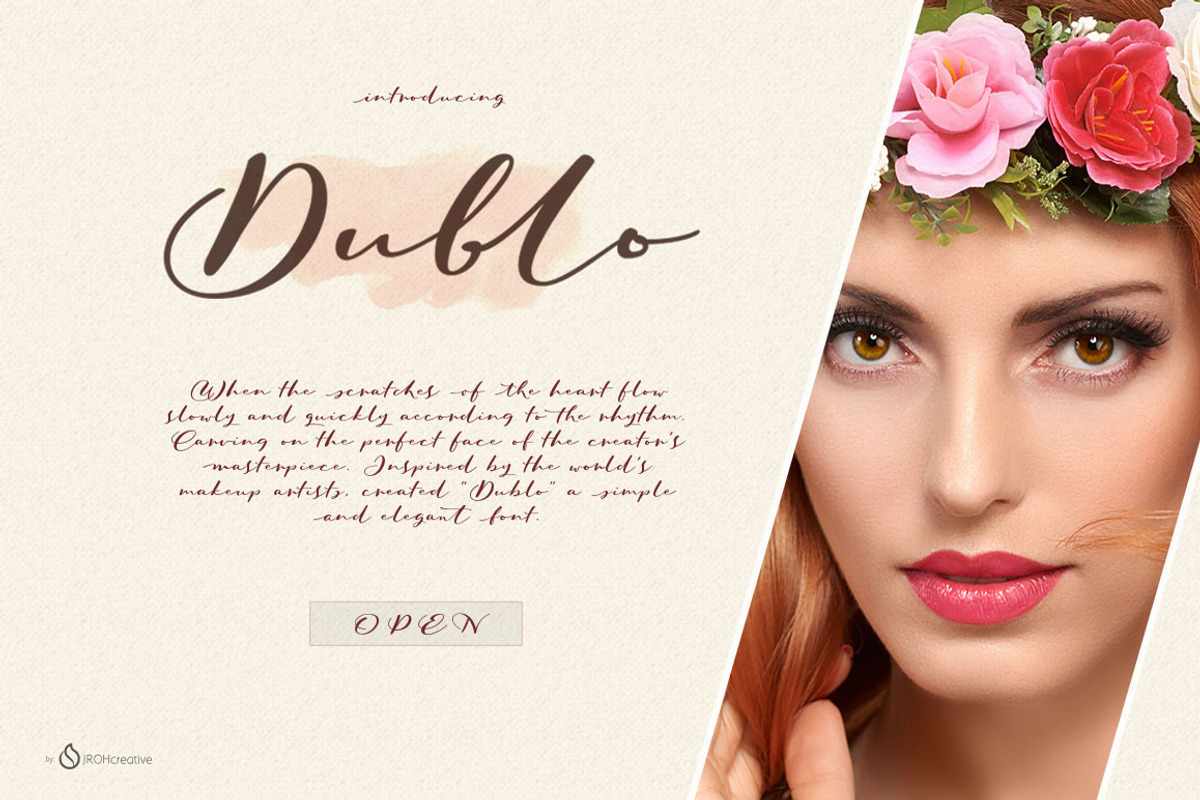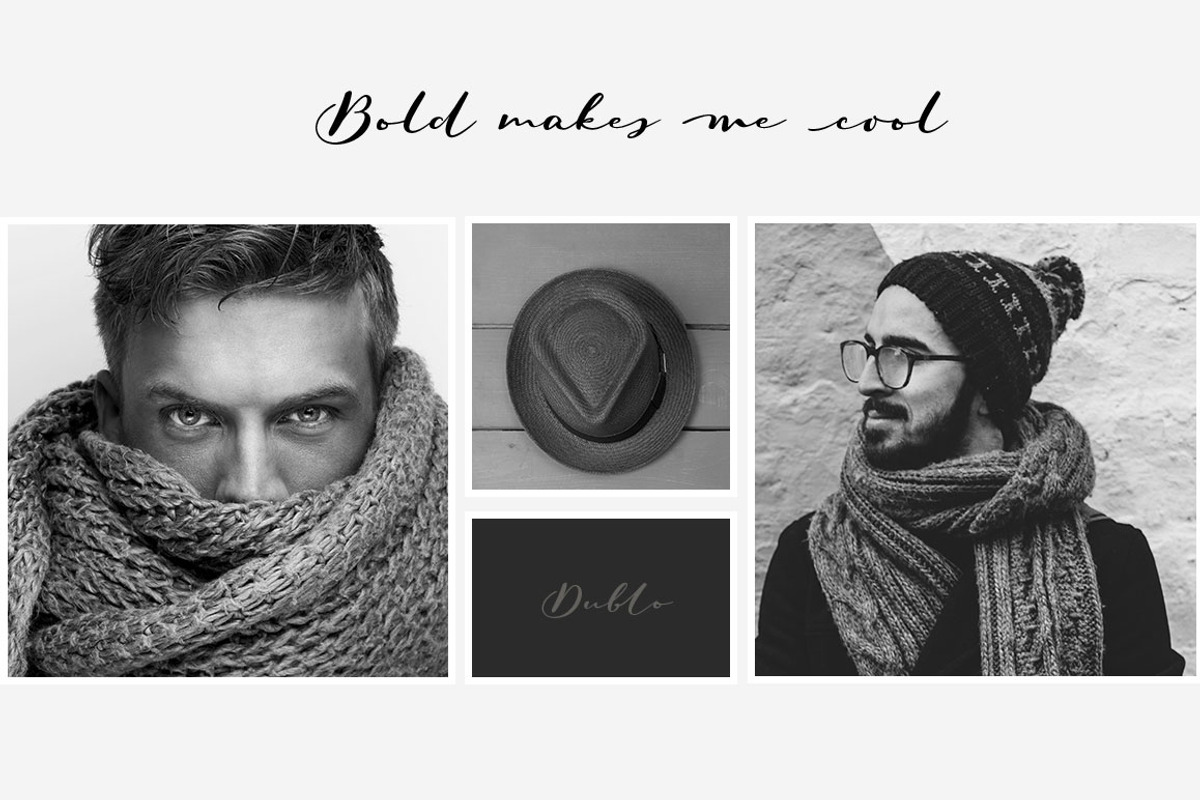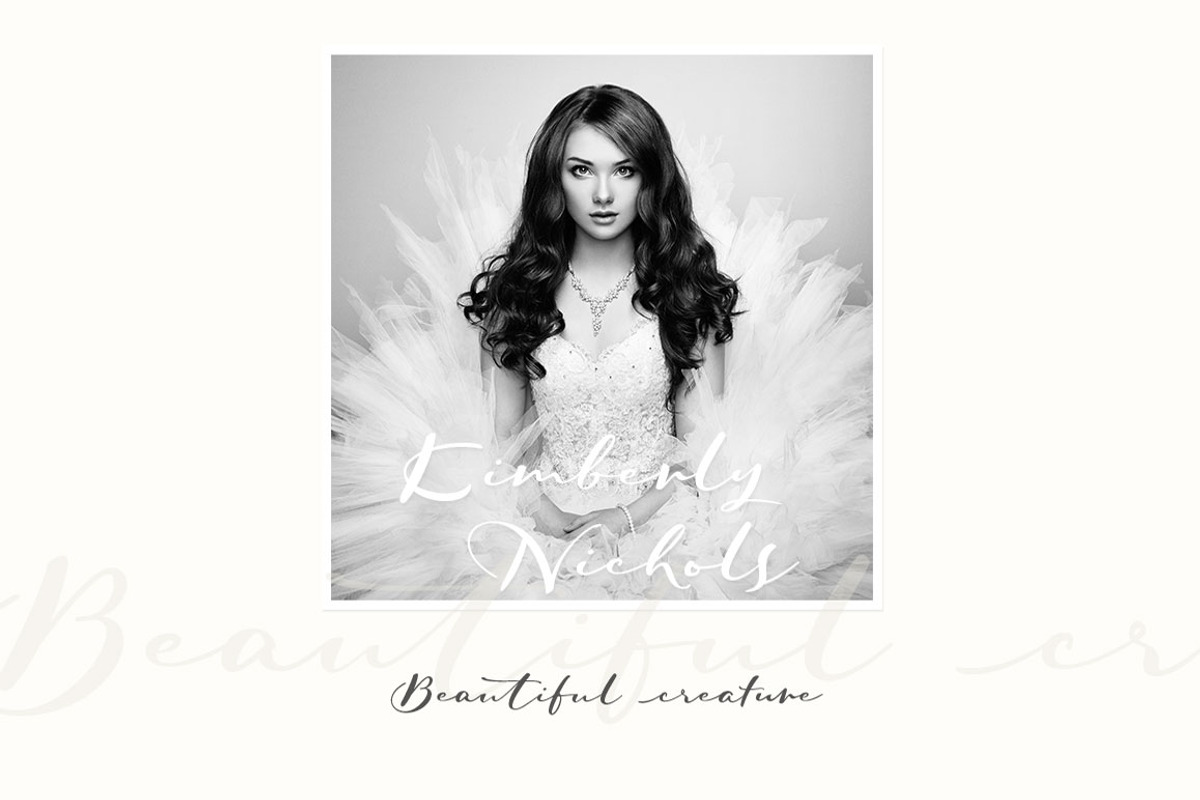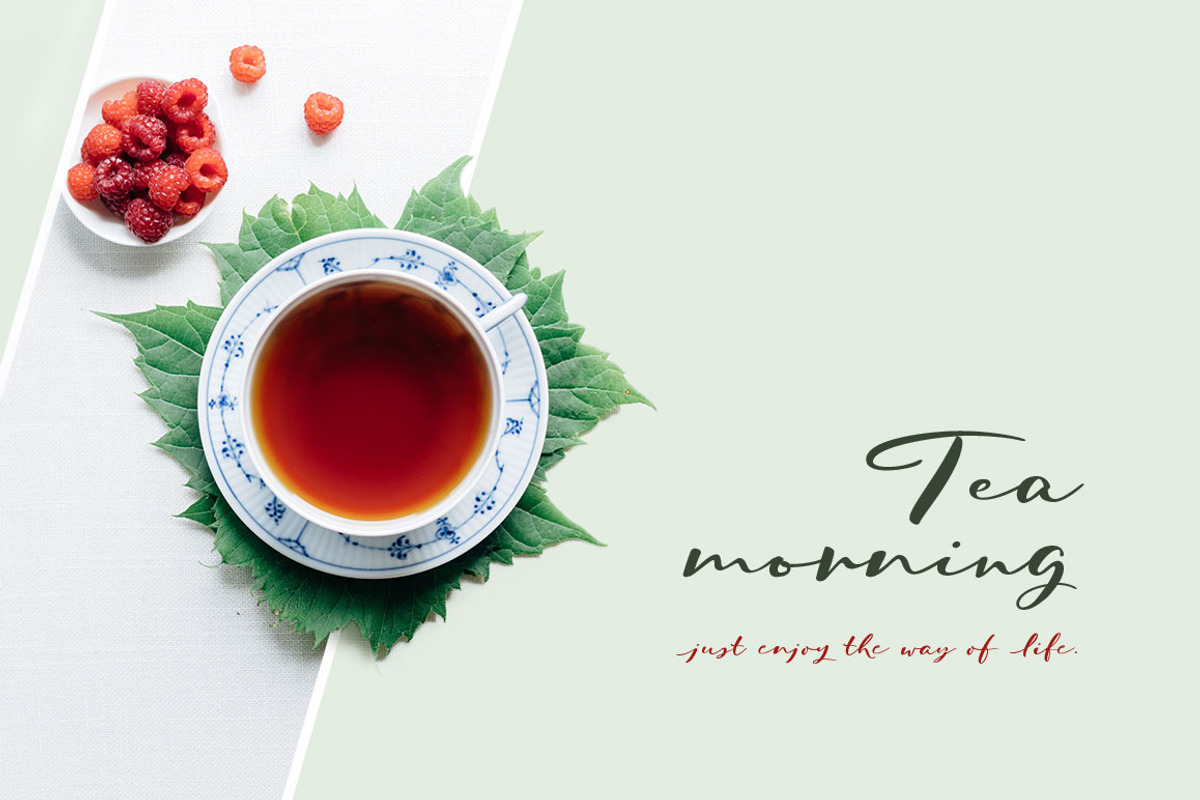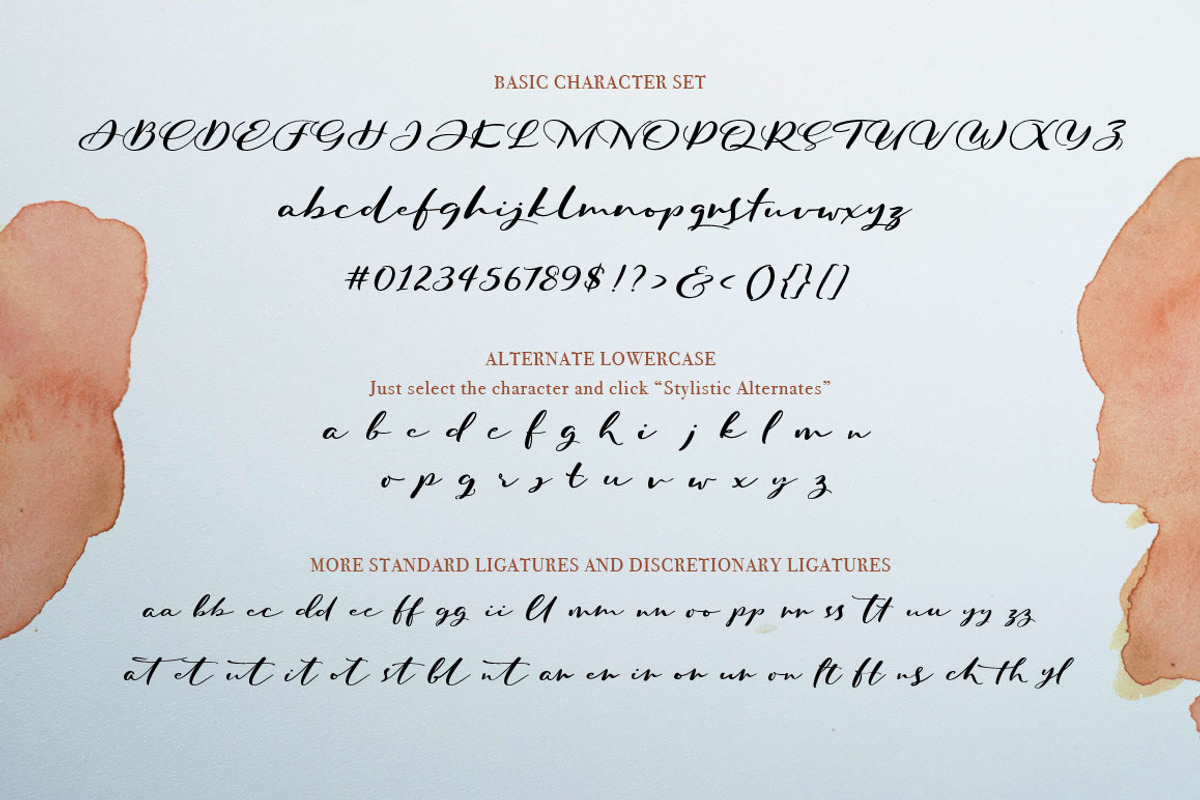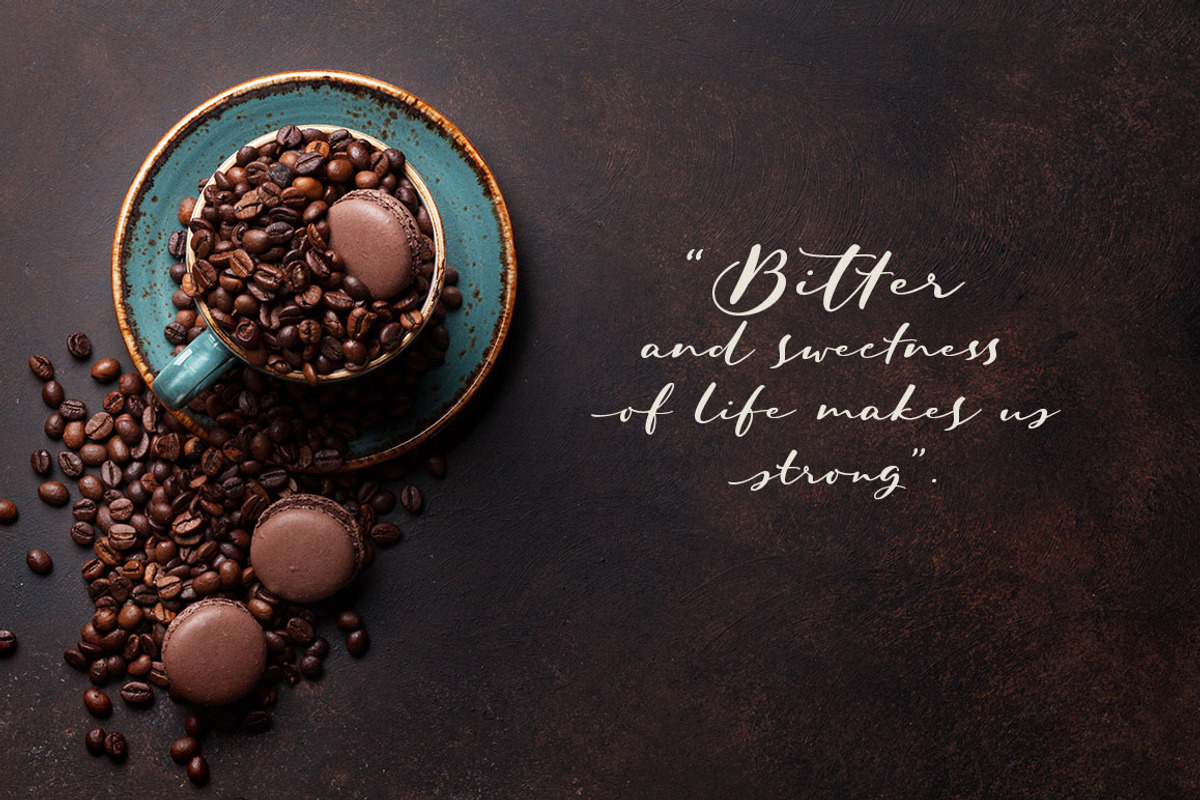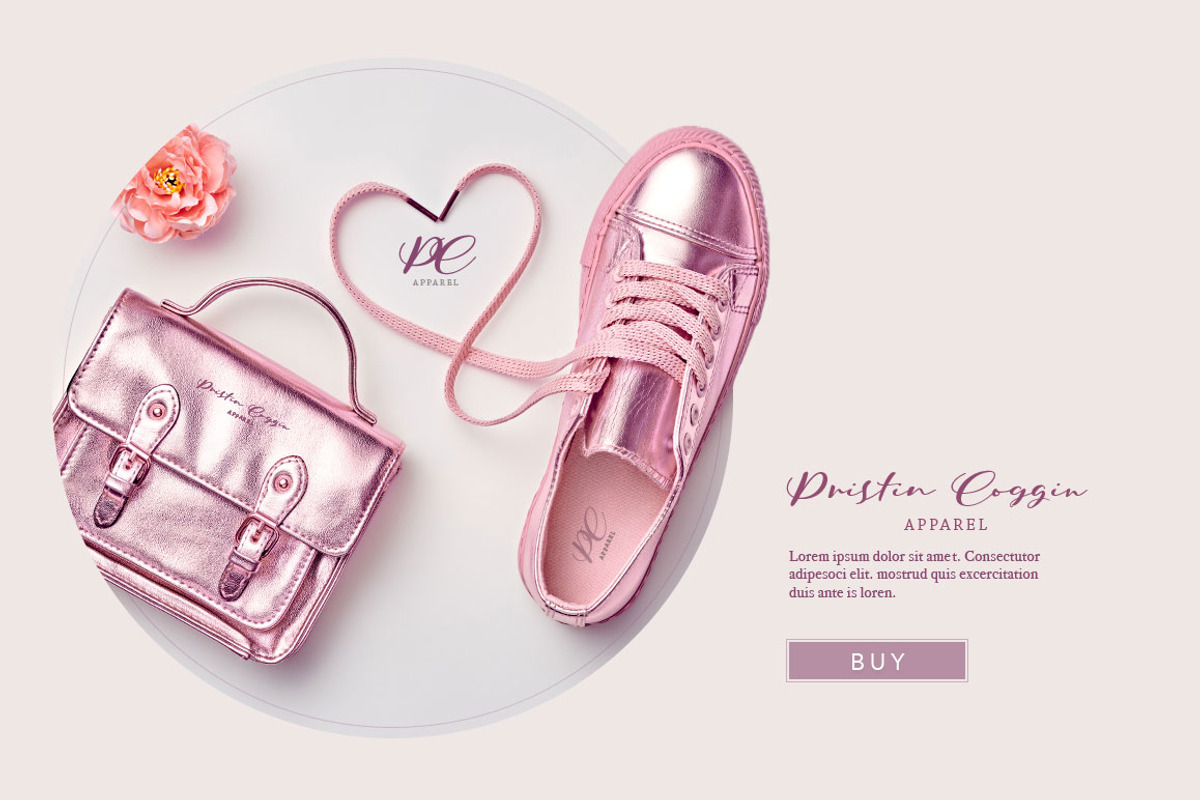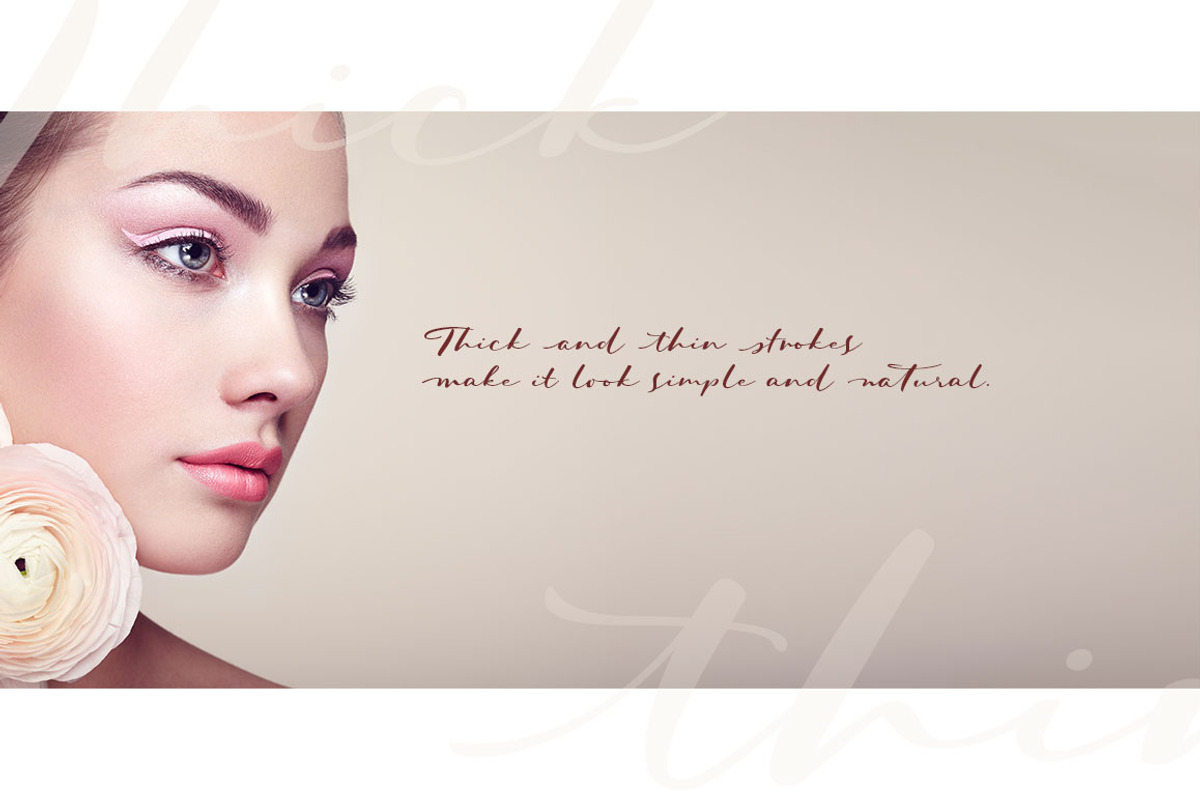
Dublo Script Font
Hi all....introduce my new font Dublo is a combination of fast and slow scratches, thin and thick lines make it look natural, classy and simple.
Dublo suitable for logos, advertisement, greeting cards, catalog, packaging design, watercolor based design, blog headers, or anything that need natural feeling to put on to.
Dublo Script Font by JROH Creative fits naturally into Branding, posters, packaging, typography.